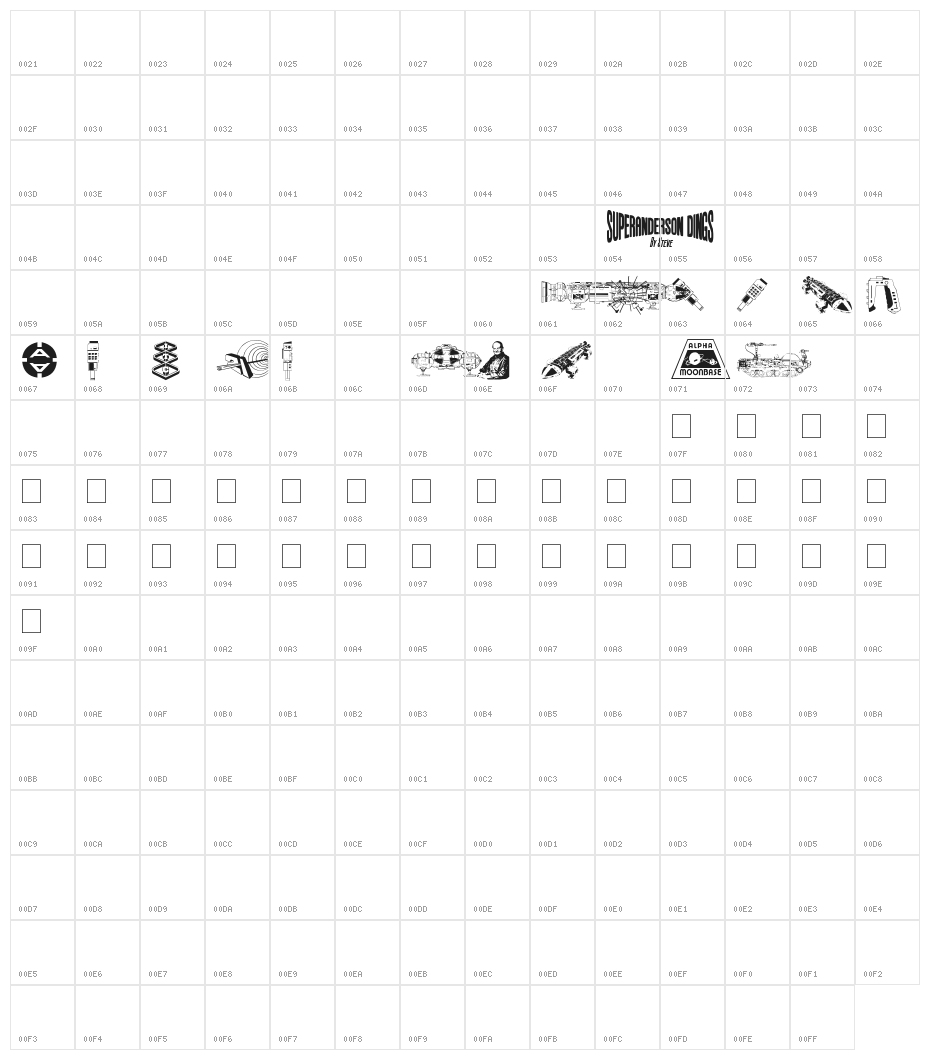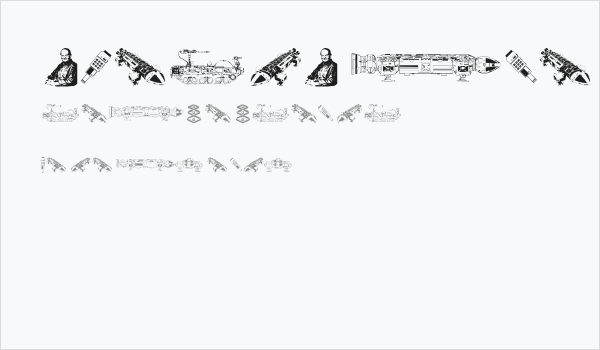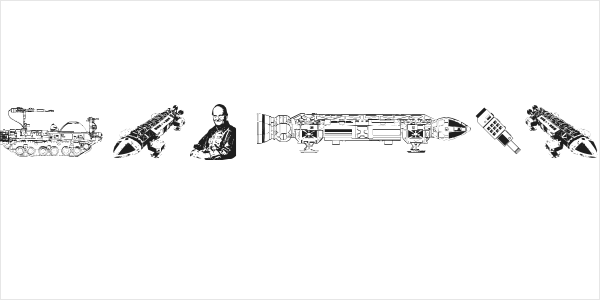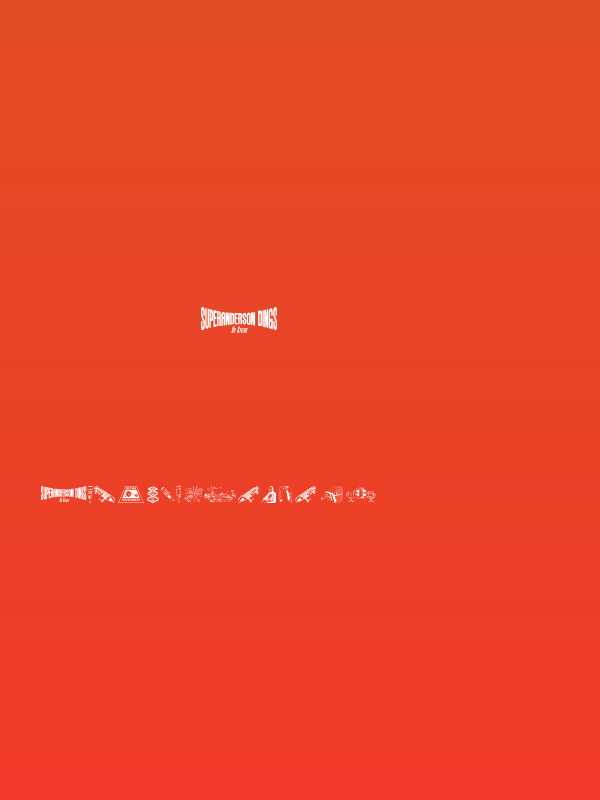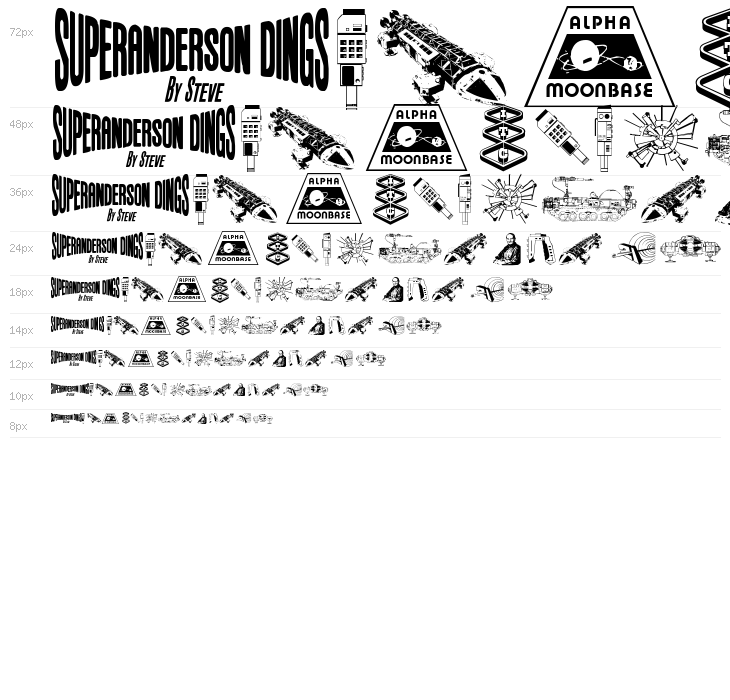
Anderson Space1999 Dings Font
Anderson Space1999 Dings Description
A decorative font featuring elements inspired by space and science fiction themes, with bold and condensed letterforms.